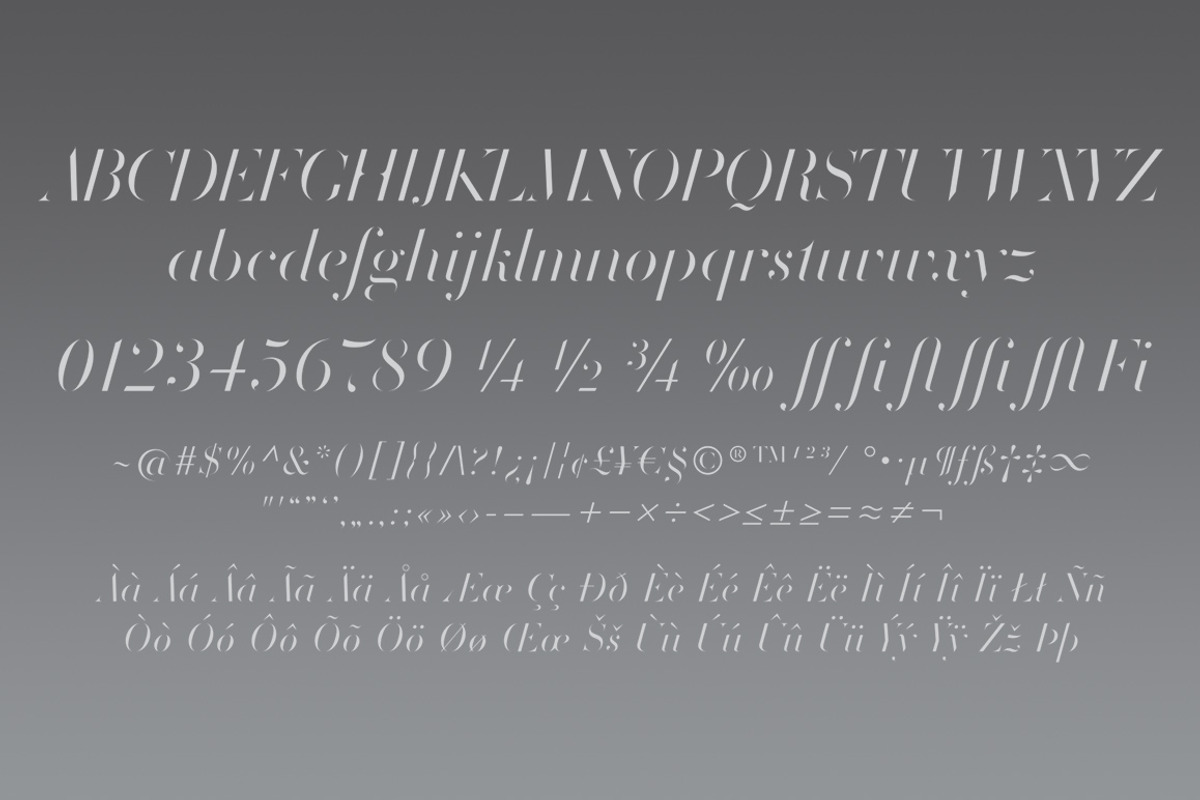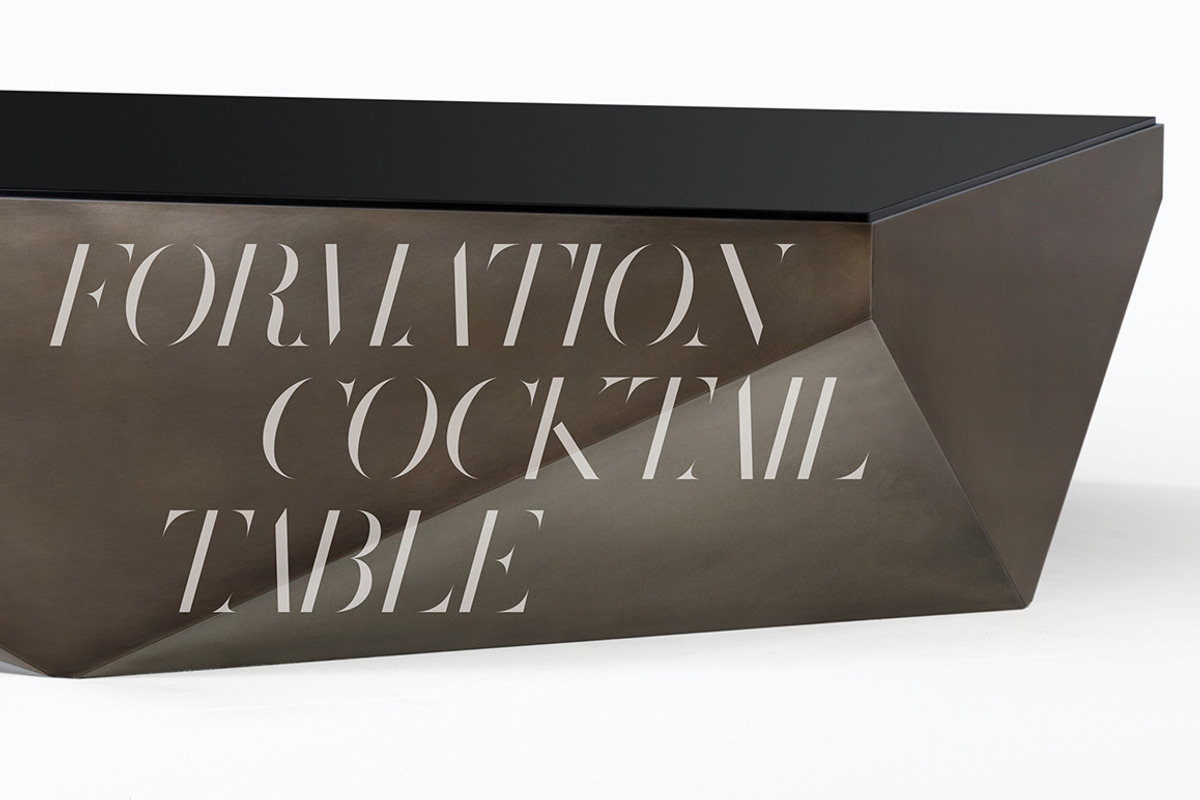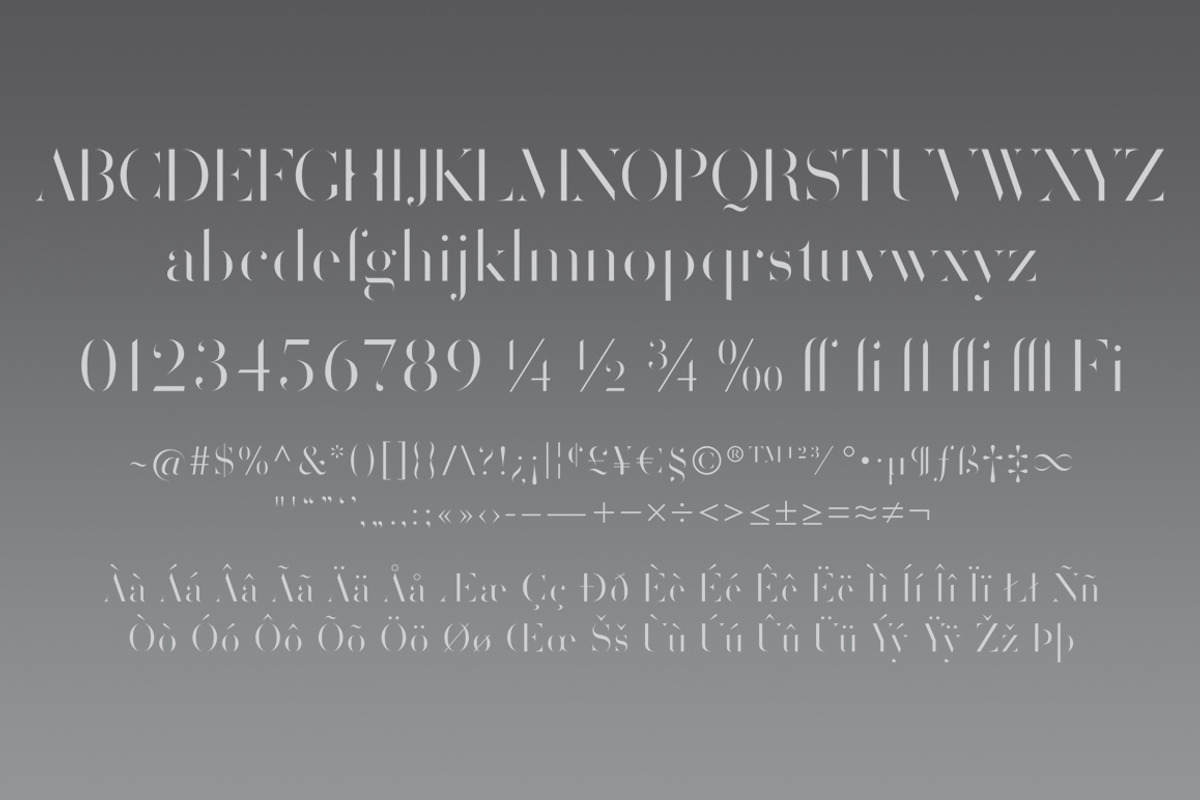
Volterra Family
In today’s typographic landscape, few would still consider Bodoni to have a “modern” feel in the larger sense of the word, but there was once a time when it’s vertical axis and thinned horizontal strokes were considered radical. Volterra—inspired by the forms of Bodoni—finishes what Bodoni started and eliminates the horizontal stroke altogether, breathing an elegant new energy into a 200-year-old classic. Volterra takes what has grown to feel traditional and transforms it into a delicate mixture of classic and modern, with razor-edged serifs and ultra-sharp strokes. Strictly a display face, the larger Volterra is used, the better it looks, but pairs well with Bodoni when body copy is needed.